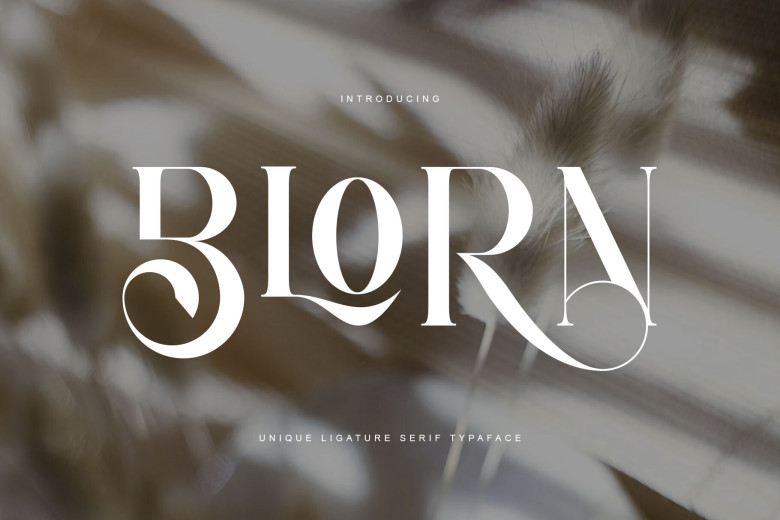
Blorn Font
BLORN is a classy and elegant serif font. Perfect for logos, magazines, social media pages and designs alike; already matched and ready to use together in your next design; perfect for adding elegance, class, chicness and modernity into designs! This font can also add the final touch when using logos!
Blorn Serif Font